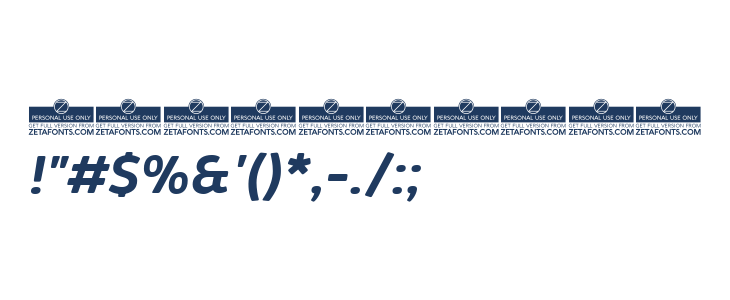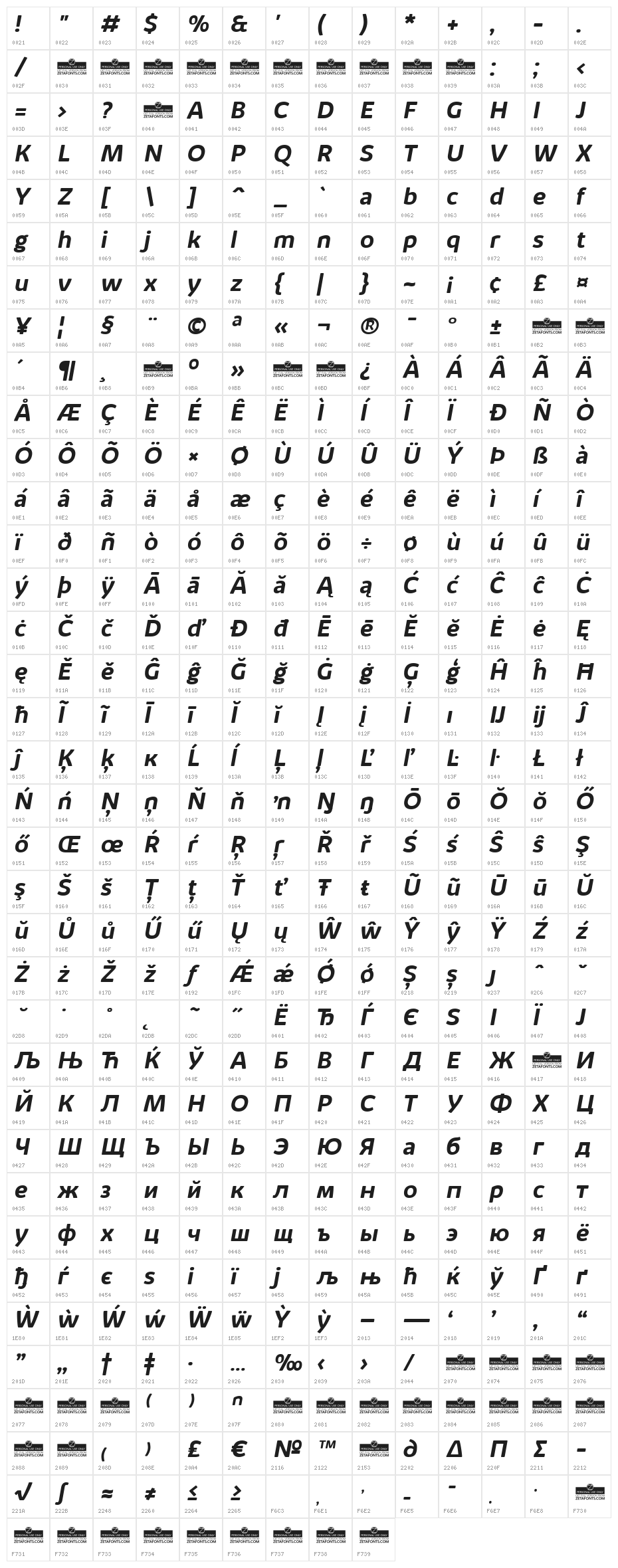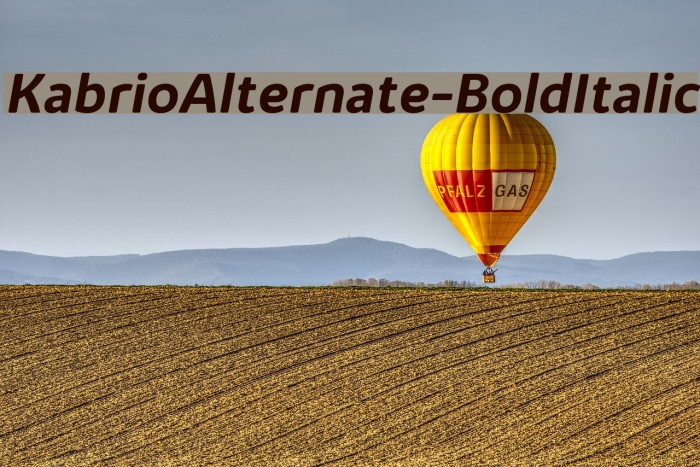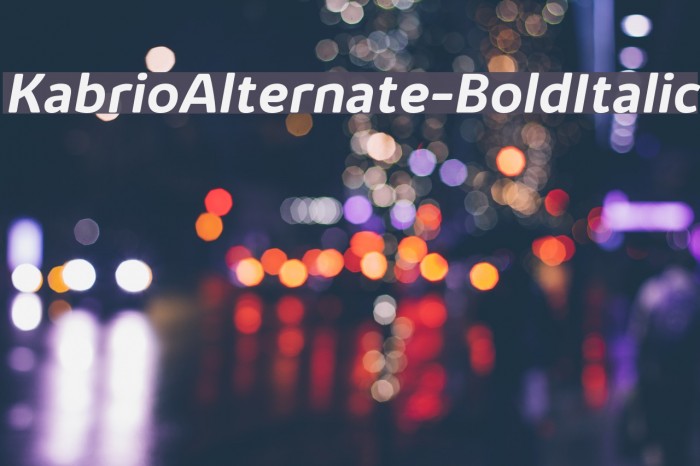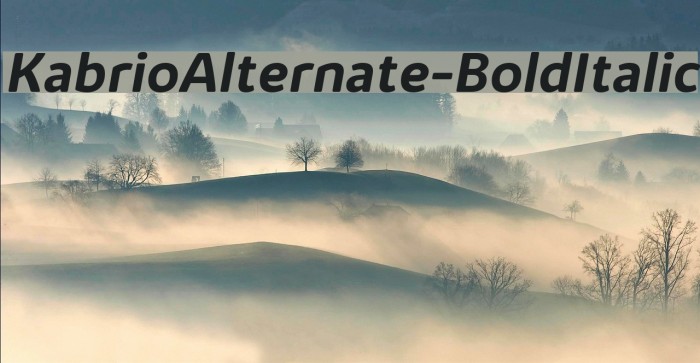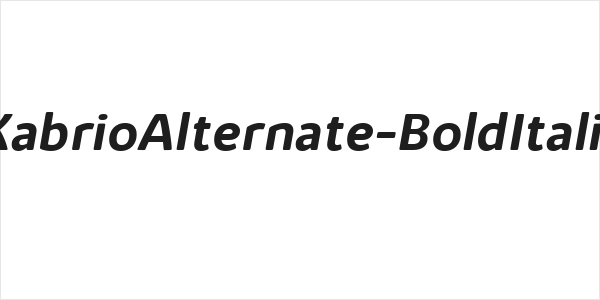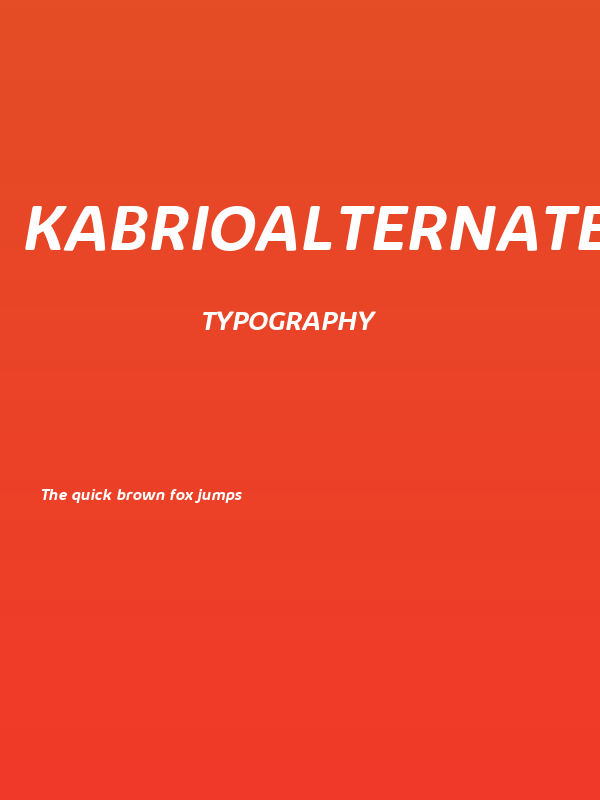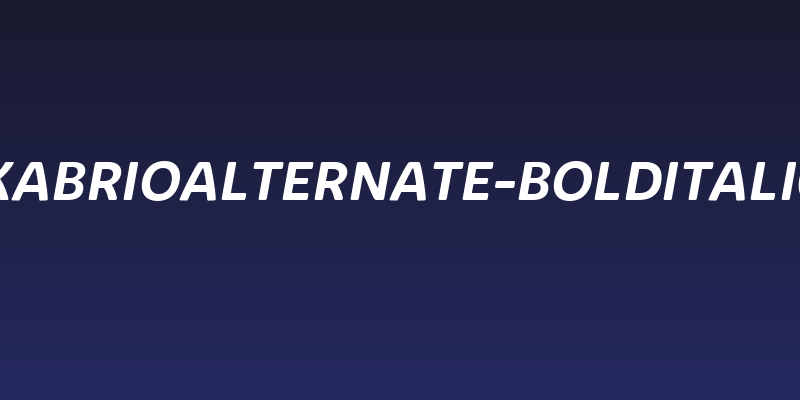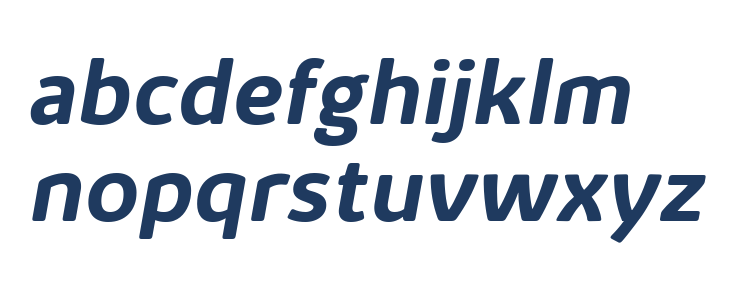
KabrioAlternate-BoldItalic Font
KabrioAlternate-BoldItalic Description
This font features a bold and italicized style, characterized by smooth curves and a modern aesthetic. The uppercase letters are slightly slanted, giving a dynamic and forward-moving appearance. The lowercase letters maintain a consistent flow, enhancing readability while retaining a stylish edge. The numerals are clear and distinct, matching the overall boldness of the font. Special characters are well-defined, ensuring versatility in various applications. The font's design is both contemporary and functional, making it suitable for a wide range of uses.
| Proposed Projects | Ideal for branding, advertising, headlines, and digital content where a modern and bold statement is needed. |